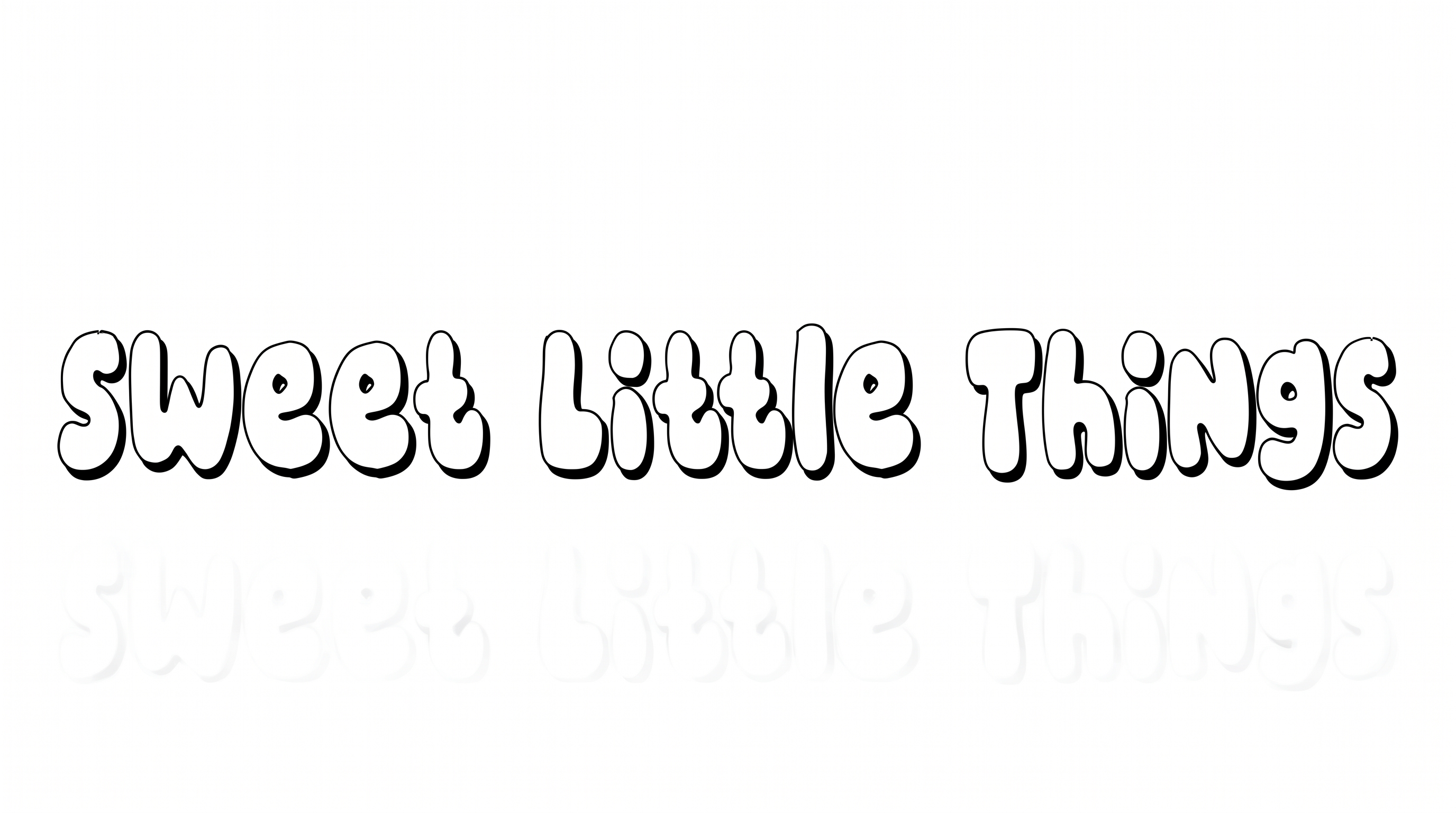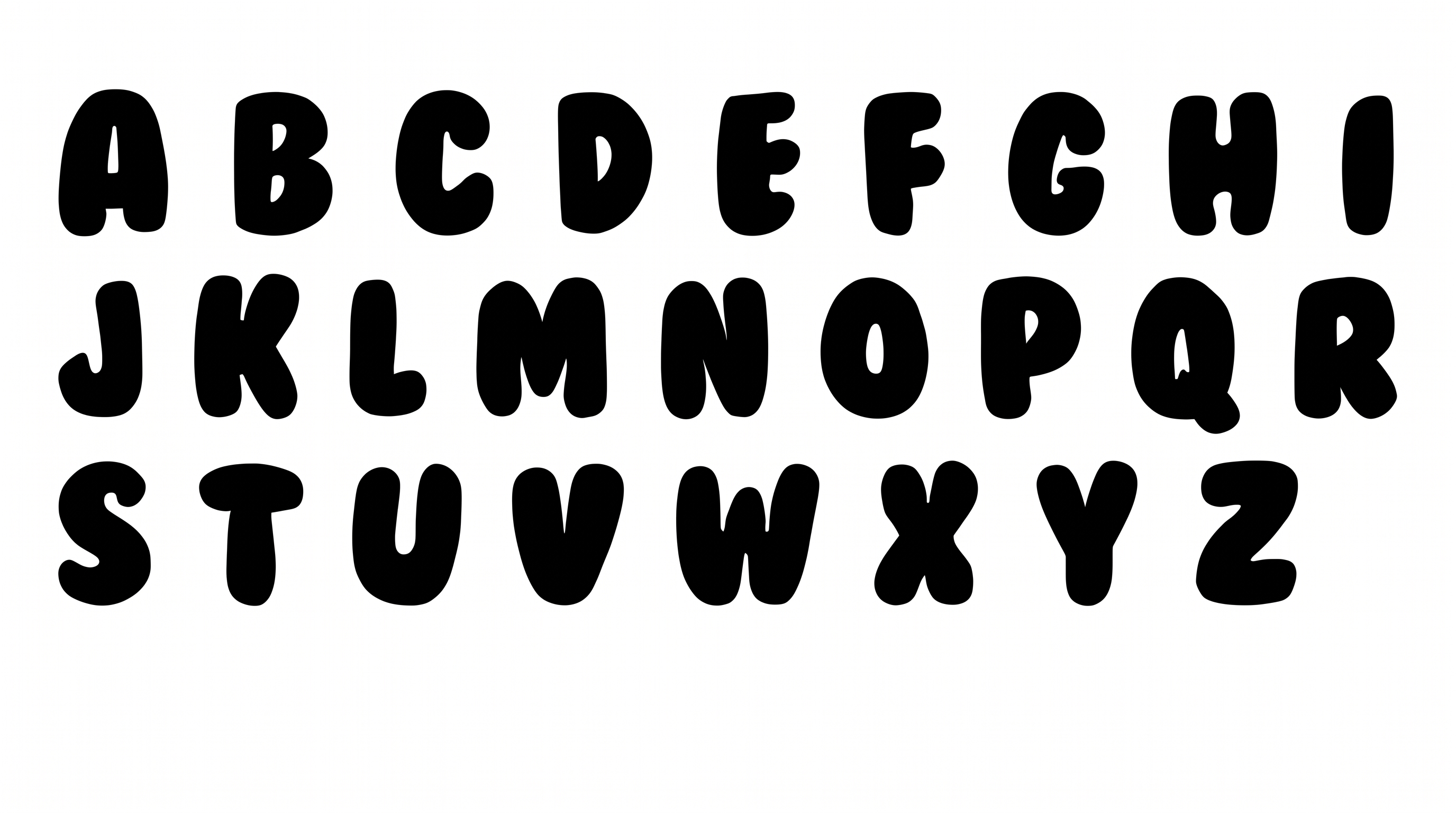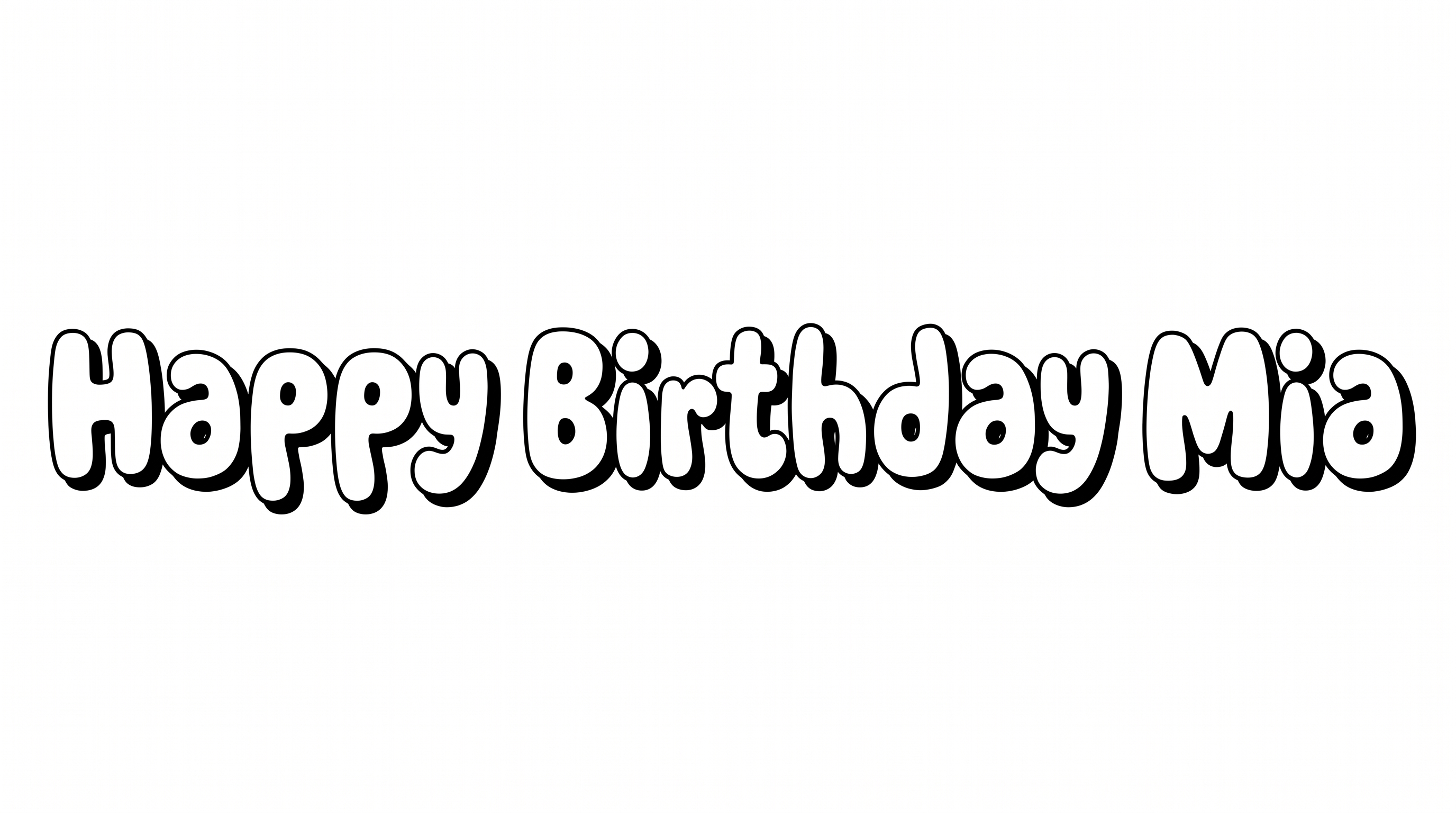
Free Bubble Letters Font Generator Online
Turn your wording into heavy, rounded bubble lettering suited to playful headlines, classroom displays, and cheerful celebration graphics.
Bubble Letters Font Style Profile
Heavy strokes, rounded corners, and broad separate forms create a soft, chunky silhouette.
• Stroke Weight
Heavy, mostly even stroke bodies give the uppercase letters a substantial presence.
• Corner Shape
Softly rounded corners shape the outer edges and interior openings.
• Letter Construction
Each uppercase character is built as a solid, continuous organic shape.
• Letter Width
Broad character proportions reinforce the lettering's chunky appearance.
• Letter Spacing
Narrow but visible gaps create a compact row while preserving separation.
• Letter Connections
Letters remain separate, with clear breaks between neighboring characters.
Frequently asked questions about Bubble Letters Font Generator
It turns your wording into a text image with heavy, rounded bubble lettering. The broad, separate characters suit playful headlines, classroom displays, celebration messages, and other designs that benefit from a chunky visual style.
Use a short headline and preserve clear space around the broad letter shapes. For an online graphic, preview the artwork at its intended display size and keep essential details outside the chunky lettering.
Center a short phrase and leave the surrounding area free of competing details. The Bubble Letters Font Generator supports square, portrait, landscape, and wide image sizes, helping the headline fit different compositions.
Simple supporting text and restrained decorative elements help the heavy, rounded letters remain prominent. The playful mood works especially well for classroom themes, birthday graphics, children's titles, and upbeat event designs.